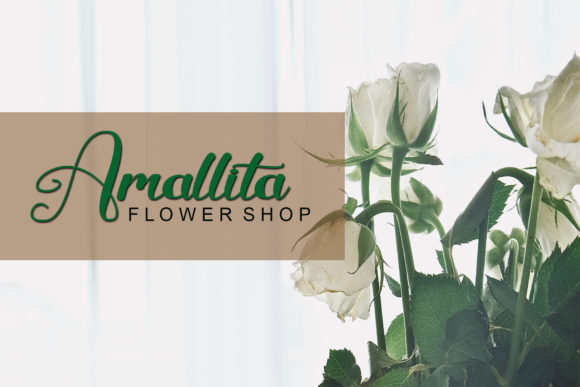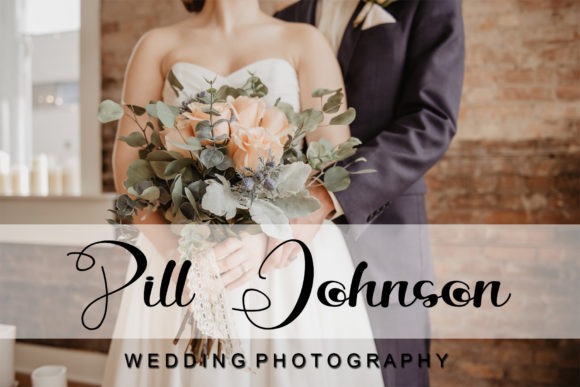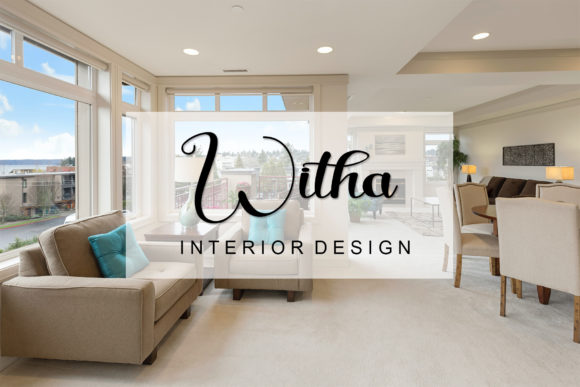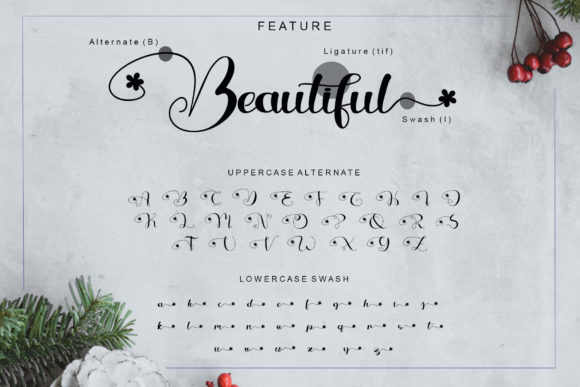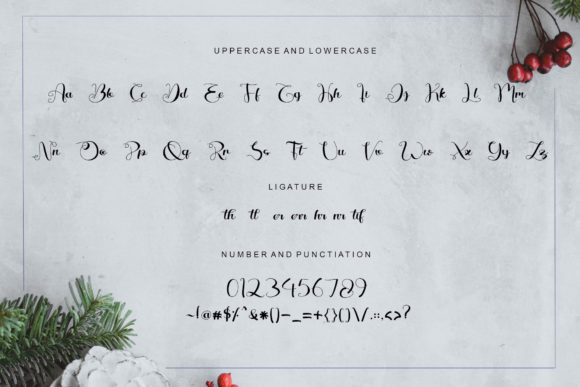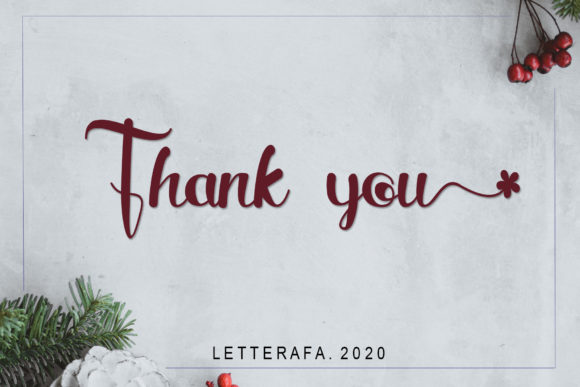
Unleash Your Creativity with Beautiful Variella Font
Have you ever found yourself sitting in front of your computer, staring at a blank screen, and suddenly a burst of inspiration hits you? The words start flowing, and your creative vision begins to take shape. This is the moment when the right font can make all the difference. For designers like you, Beautiful Variella Font is a game-changer.
This enchanting handwritten font is a masterclass in romance and style. With its whimsical touch and PUA encoding, Beautiful Variella Font makes it easy to access all the glyphs and swashes you need to bring your designs to life. Whether you’re crafting invitations, wedding cards, or social media graphics, this font is sure to make each of your creations look truly amazing.
What sets Beautiful Variella Font apart is its unique ability to add a touch of elegance and sophistication to any design. As a designer, you know how valuable it is to have a versatile font that can adapt to any project. With Beautiful Variella Font, you’ll never run out of creative possibilities.
Beautiful Variella Font Key Features
- Unique Characteristics: Variella features a unique blend of elegance and sophistication, with intricate details and subtle flair, making it perfect for high-end designs and branding.
Beautiful Variella Font Review
Overall, I was quite impressed with the Beautiful Variella Font. It’s a beautiful and elegant script font that would be perfect for designing wedding invitations, greeting cards, or any other creative project where a touch of sophistication is needed. Here are some of the things that I like about it:
- ✨ Elegant and refined design: The Beautiful Variella Font has a classic feel to it, with flowing lines and subtle flair that makes it perfect for adding a touch of elegance to any design.
- ✨ Great for creative projects: The Beautiful Variella Font is perfect for designers who want to add a touch of sophistication and elegance to their designs.
- ⚠️ Limited character set: The Beautiful Variella Font only includes the basic Latin character set, which may be a limitation for designers who need to work with languages that use non-Latin scripts.
- ⚠️ May not be suitable for headlines: While the Beautiful Variella Font is perfect for body text, it may not be the best choice for headlines due to its delicate nature.
Overall, I would highly recommend the Beautiful Variella Font to designers who are looking for a elegant and refined script font. While it may have some limitations, it’s a beautiful font that is perfect for a wide range of creative projects.
For the best results, use the Beautiful Variella Font for titles, headings, and other large text elements. This font is particularly well-suited for wedding invitations, branding materials, and other creative projects. Experiment with different font sizes and colors to create a unique visual effect.